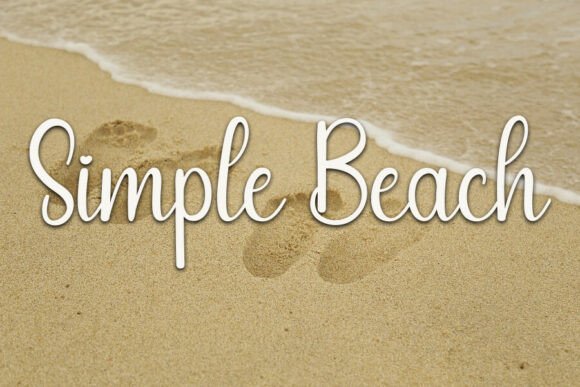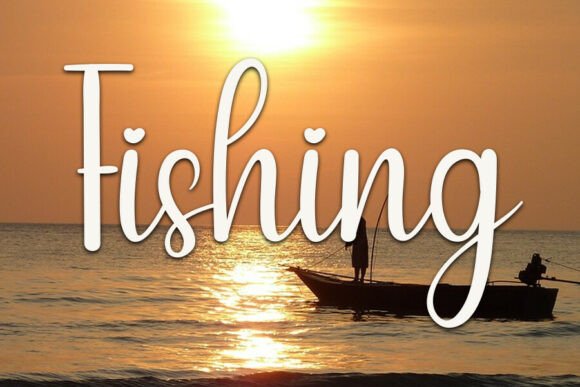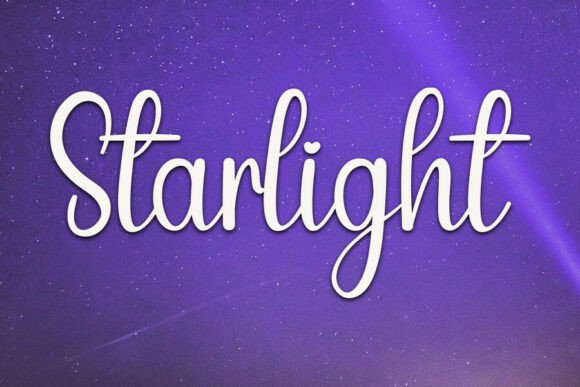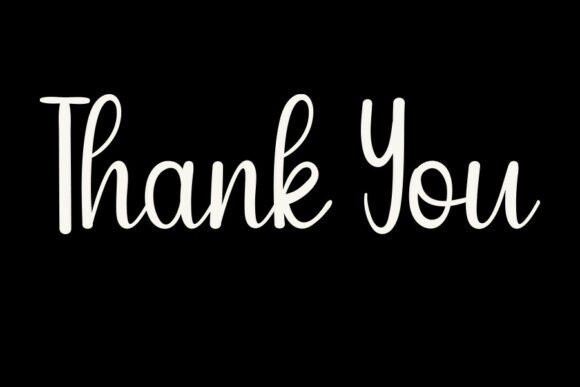
Have you ever stumbled upon a handwritten note from a loved one, or a beautifully crafted invitation that made your heart skip a beat? Those moments are what designers strive for – a connection with their audience through a visually appealing and meaningful design. The Brighter Font is one such tool that can help you achieve this connection, bringing a friendly and casual feel to your creations.
This tall, sweet handwritten font is perfect for adding a charming, handcrafted touch to your bakery branding, food blogs, birthday invites, or any other project that needs a little personality. By incorporating the Brighter Font into your designs, you can add a unique and memorable element that sets your work apart.
For designers, the Brighter Font is a valuable asset, offering a versatile and customizable solution for a wide range of projects. Its friendly and casual feel makes it an ideal choice for those looking to add a touch of whimsy to their designs without overwhelming their audience.
Brighter Font Key Features
- Font Family: Brighter Font comes in 5 different font families, each with its unique characteristics and styles.
- Unique Characteristic: Brighter Font features a unique blend of modern and vintage elements, giving it a distinctive look that sets it apart from other fonts.
- Language Support: Supports over 100 languages, making it a great choice for global brands and companies that need to communicate with diverse audiences.
Brighter Font Review
I’ve had the chance to dive into the Brighter Font and here’s my honest take.
- Accessibility: The font is highly legible, making it a great choice for digital content.
- Customization options: The font offers a range of weights and styles, allowing for a high degree of customization.
- Compatibility: It works seamlessly across various platforms and devices.
- Overuse: The font’s popularity might lead to overuse, making it feel less unique and special.
- Not ideal for body text: While the font is great for headings, it might not be the best choice for large blocks of body text.
- Lack of personality: Some users might find the font too safe or generic.
Overall, I think Brighter Font is a solid choice for digital design projects. While it may not be the most exciting font, its accessibility, customization options, and compatibility make it a reliable choice. However, it’s essential to use it thoughtfully and in the right context to avoid overuse and maintain its effectiveness.
Getting the Most Out of Brighter Font
For optimal results, use Brighter Font in combination with a clear and legible background. Avoid using Brighter Font in small font sizes or with complex graphics. Experiment with different font sizes and styles to find the perfect balance for your design.
Brighter Font is ideal for creating eye-catching headlines, titles, and captions. It’s also great for designing digital products, such as e-books, infographics, and presentations. Use Brighter Font to add a professional touch to your designs and grab the attention of your audience.
Alternatives to Brighter Font for Designers
Open Sans is a clean and modern sans-serif font that is highly legible. It is suitable for body text, headings, and titles. When to use: For web and mobile applications, as well as print materials where a clear and simple font is desired.
Open Sans is a more versatile font compared to Brighter Font, as it comes in a wider range of weights and styles. However, it may lack the bold and distinctive look of Brighter Font.
Lato is a modern sans-serif font that is highly customizable. It comes in multiple weights and styles, making it suitable for various design applications. When to use: For corporate branding, web design, and advertising materials where a clean and sophisticated font is desired.